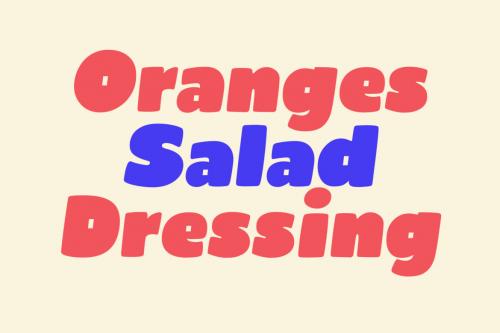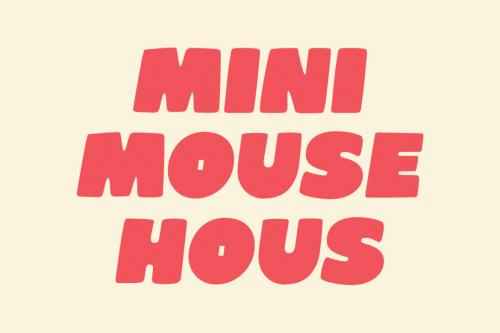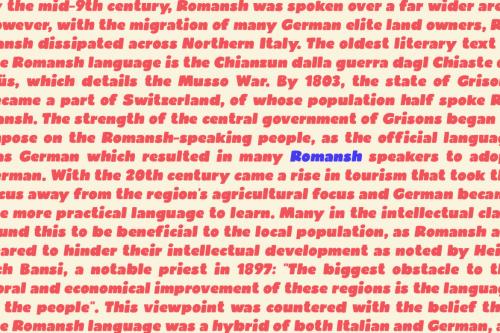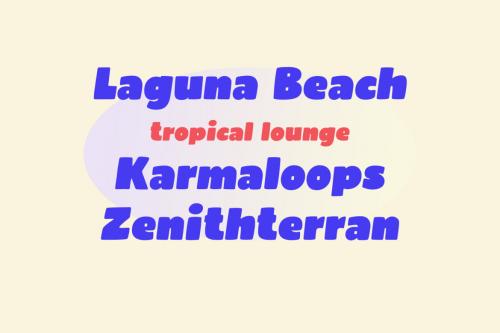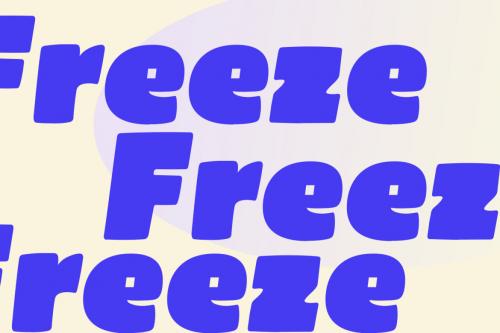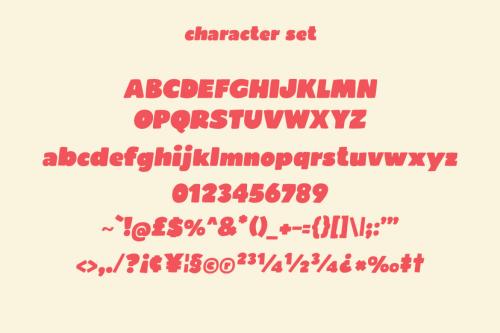
Deeezy - Bearty Handwritten Display Font
Bearty is a casual handwritten font. With slanted heavy stroke, fun character with a bit of ligatures and alternates. To give you an extra creative work. Bearty font support multilingual more than 100+ language. This font is good for logo design, Social media, Movie Titles, Books Titles, a short text even a long text letter and good for your secondary text font with script or serif. Make a stunning work with Bearty font.